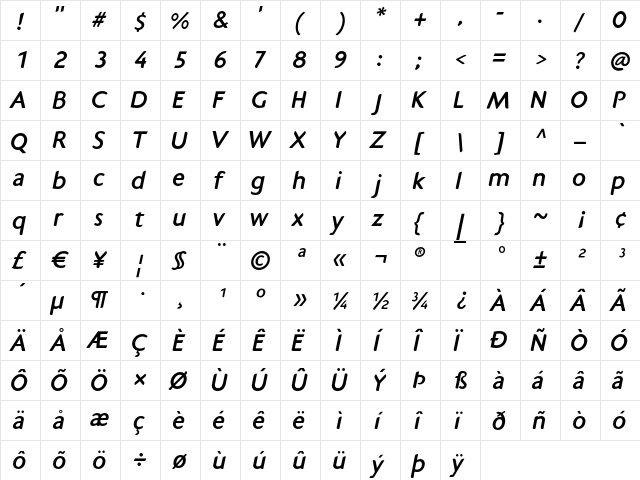
AiPaiNutaaq BoldItalic Font Preview
AiPaiNutaaq BoldItalic
Design Context for AiPaiNutaaq Typeface
AiPaiNutaaq offers clean, dependable letterforms without strong stylistic allegiance, making it a practical choice for designers who need flexibility. Its italic angle brings a sense of urgency and motion to the letterforms. The heavy weight commands attention and anchors typographic hierarchies.
Pro Tip: Use AiPaiNutaaq for emphasis, pull quotes, and subheadings where its slanted energy can add rhythm to the layout.